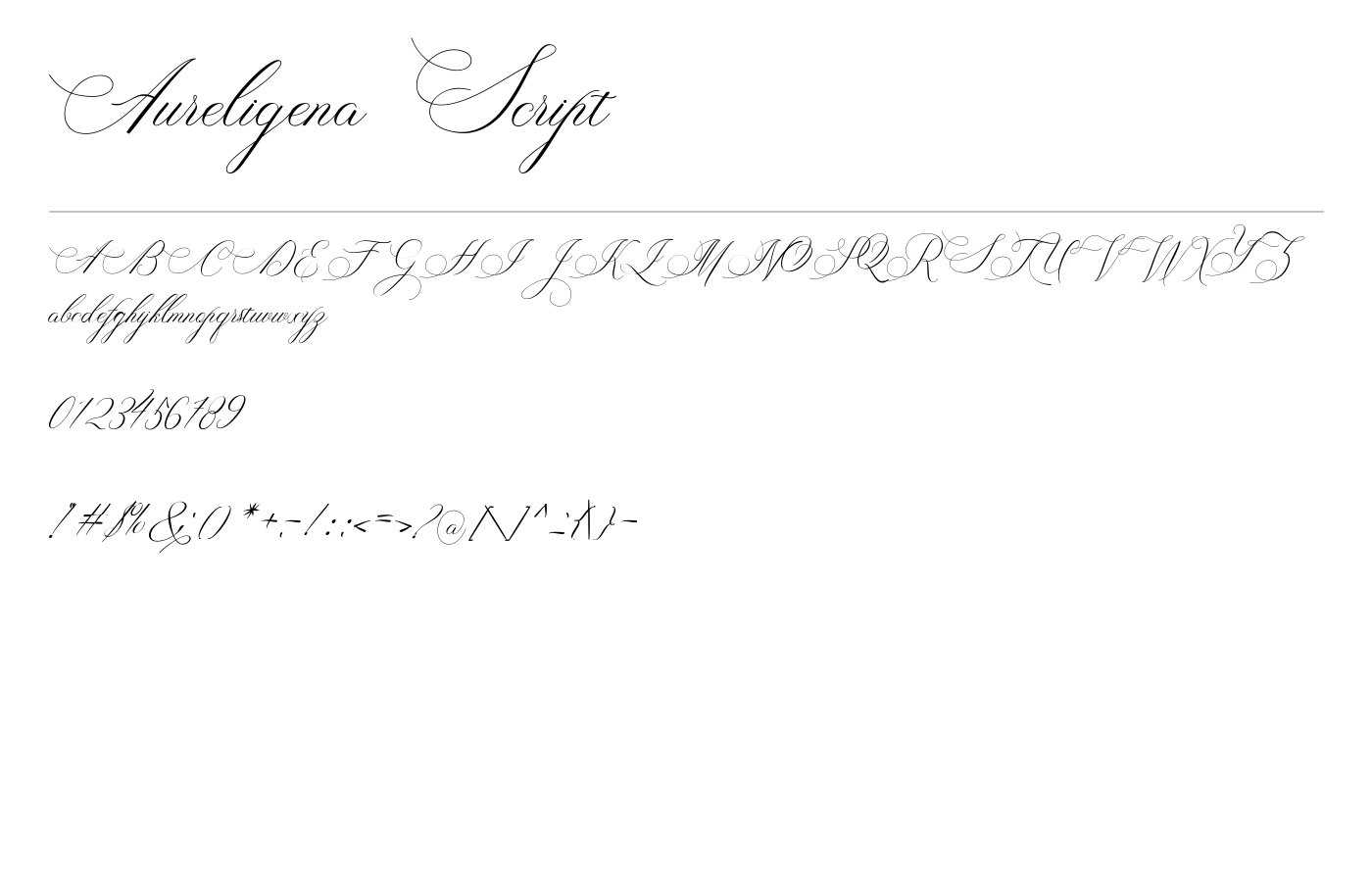
Aureligena Script is an elegant and delicate script font featuring graceful, flowing lines with fine hairline strokes and ornate flourishes. Its high-contrast, calligraphic style conveys a refined, romantic feel ideal for luxury branding, wedding invitations, and sophisticated editorial headlines where a touch of classic beauty is desired. This font’s airy and artistic letterforms evoke timeless elegance, making it perfect for projects that seek to express charm and sophistication.
Aureligena Script Font
About Aureligena Script Font
| Font family | Aureligena Script Font |
| Designer | Logic Type |